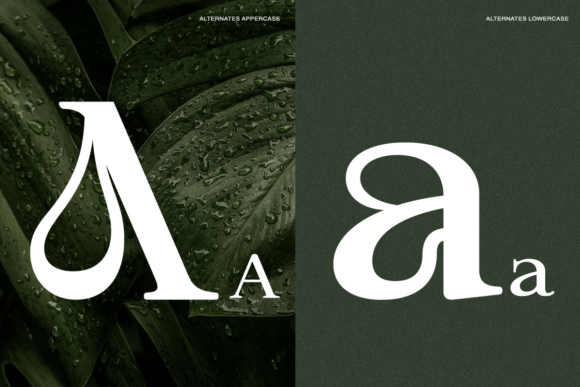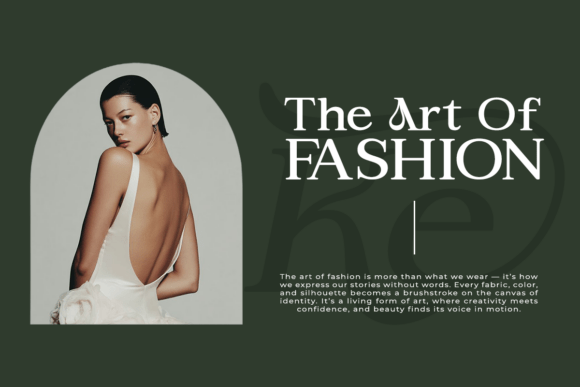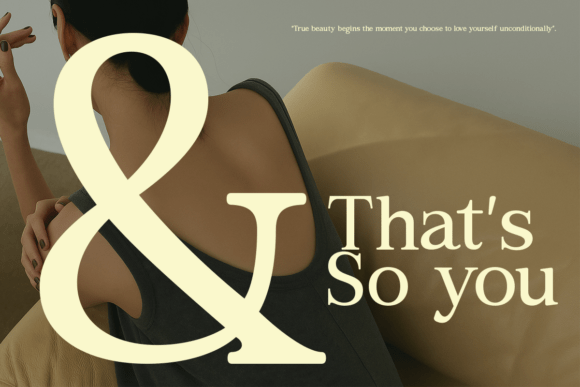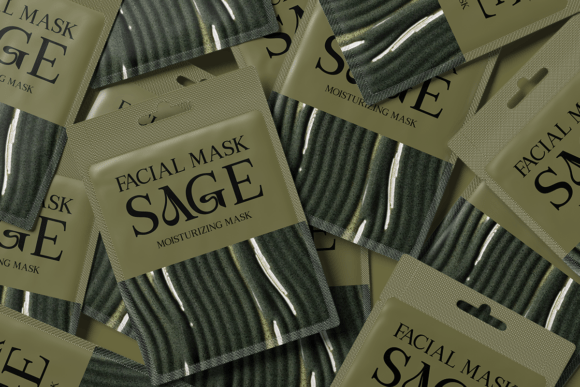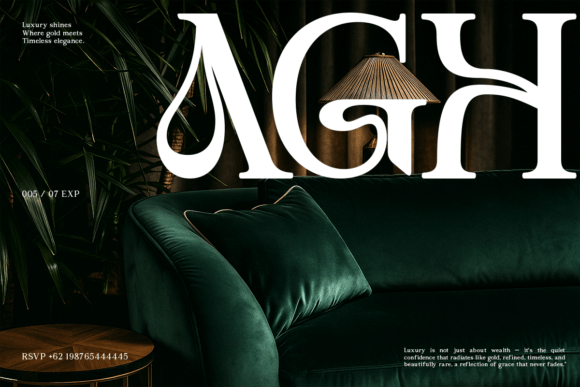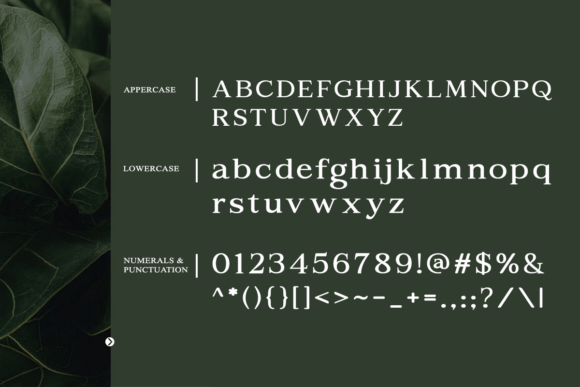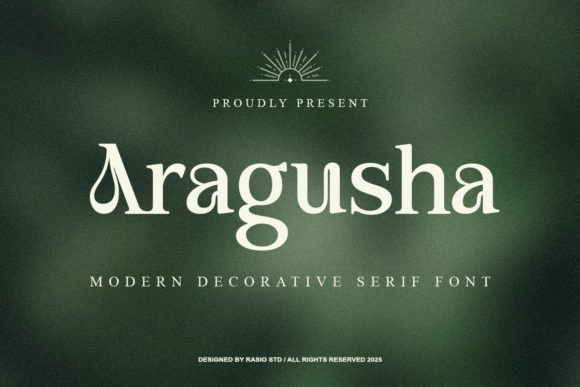
Aragusha Font: Elevate Your Designs with Elegance and Sophistication
In the world of typography, a font can make or break a design. For projects that demand refined elegance and artistic flair, Aragusha font is an exceptional choice. This modern decorative serif font seamlessly blends sophistication with distinctive artistic details, making it perfect for luxury branding, fashion editorials, magazine headlines, and more.
The Essence of Aragusha Font
Aragusha is more than just a font – it’s a statement piece. Designed to add a touch of elegance and expressiveness to your typography, Aragusha boasts refined lines, intricate details, and a unique character that sets it apart from other serif fonts. Its modern approach to traditional serif typography makes it versatile and adaptable to various design applications.
Perfect for Luxury and Fashion Projects
Luxury branding, fashion editorials, and high-end product packaging require typography that exudes sophistication and style. Aragusha font rises to the challenge, offering a distinctive and elegant solution. Its decorative serifs and artistic details add a level of refinement that elevates your designs, making them perfect for:
- Luxury branding: Create a lasting impression with Aragusha’s elegant typography, perfect for high-end brands and bespoke services.
- Fashion editorials: Add a touch of glamour to your fashion editorials with Aragusha’s sophisticated and stylish font.
- Magazine headlines: Make your magazine headlines stand out with Aragusha’s bold and eye-catching typography.
- Boutique logos: Create a unique and memorable logo for your boutique or luxury business with Aragusha’s distinctive font.
Beyond Luxury: Exploring Other Applications of Aragusha
While Aragusha excels in luxury and fashion projects, its versatility extends to various other design applications:
- Beauty and cosmetic branding: Elevate your beauty brand with Aragusha’s elegant and sophisticated typography.
- Product packaging: Add a touch of luxury to your product packaging with Aragusha’s refined and decorative font.
- Advertising layouts: Create eye-catching ads with Aragusha’s bold and stylish typography.
- Social media visuals: Stand out on social media with Aragusha’s unique and expressive font, perfect for creating engaging visuals.
Why Choose Aragusha Font?
With so many fonts available, what sets Aragusha apart? Here are a few compelling reasons to choose Aragusha for your next design project:
- Unique character: Aragusha’s distinctive artistic details and decorative serifs make it a one-of-a-kind font that adds personality to your designs.
- Versatility: From luxury branding to social media visuals, Aragusha adapts seamlessly to various design applications.
- Elegance and sophistication: Aragusha’s refined lines and elegant typography make it perfect for projects that demand a touch of luxury and sophistication.
Aragusha font is a game-changer for designers and crafters seeking to add a touch of elegance and sophistication to their projects. With its unique character, versatility, and refined lines, Aragusha is perfect for luxury branding, fashion editorials, magazine headlines, and more. Whether you’re a seasoned designer or just starting out, Aragusha font is an exceptional choice for elevating your designs and making a lasting impression.